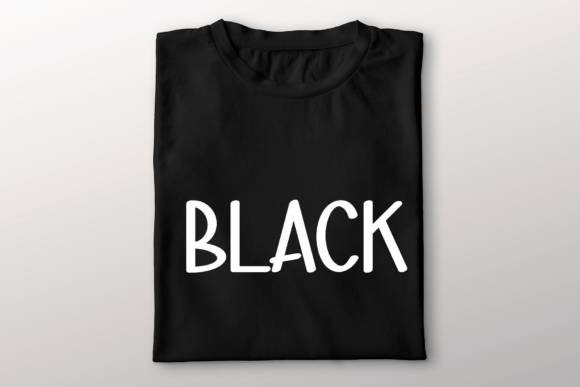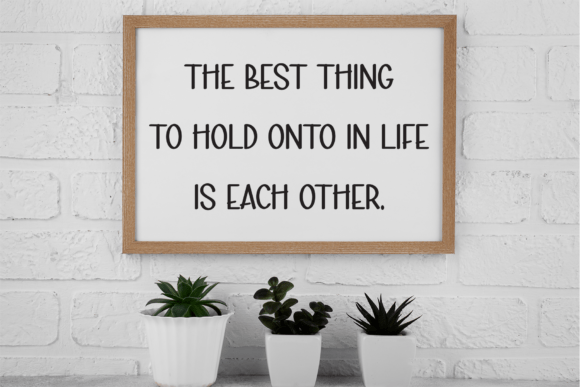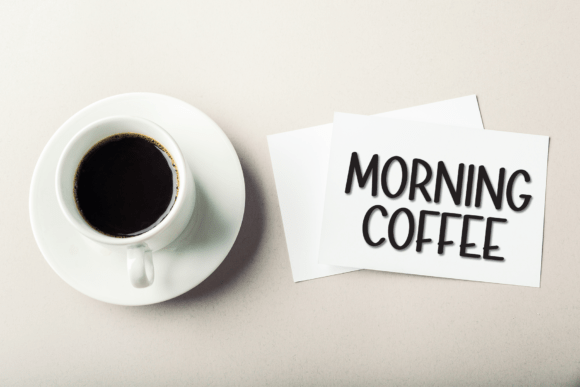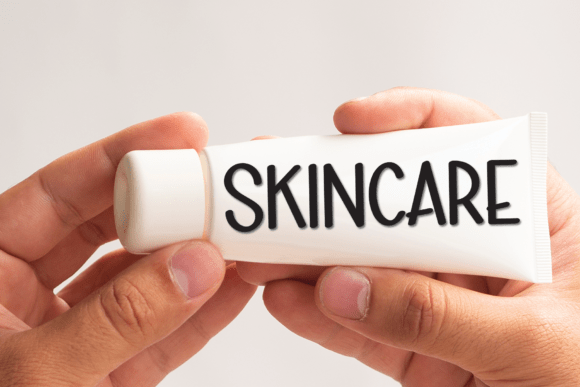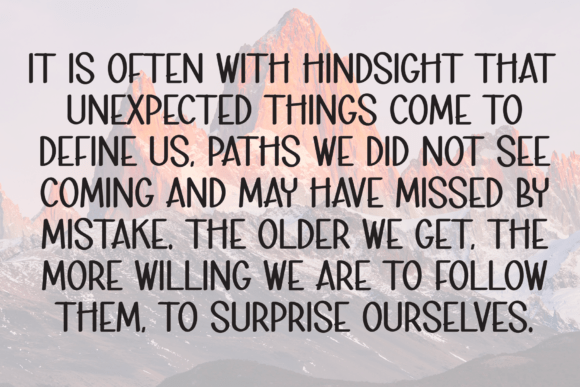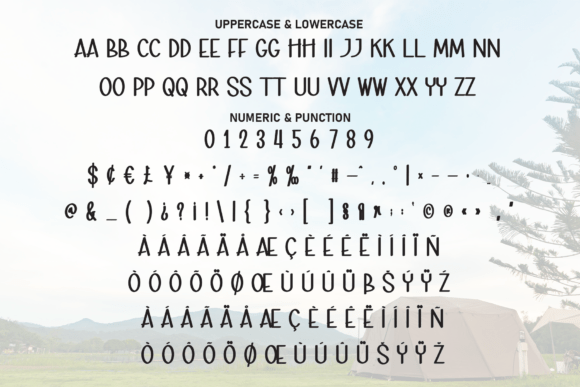
Camping Ground Font: Elevate Your Designs with a Casual and Neat Display Font
Are you tired of using generic fonts that lack personality? Look no further than the Camping Ground Font, a casual and neat display font designed to bring warmth and clarity to your projects. With its clean structure and approachable style, this font is perfect for branding, headlines, and everyday designs.
The Charm of Camping Ground Font
Camping Ground Font boasts balanced letterforms that offer readability and charm, making every message feel genuine and inviting. Its unique blend of modernity and approachability sets it apart from other fonts, making it an excellent choice for designers and crafters looking to add a personal touch to their work.
Key Features of Camping Ground Font
- Clean Structure: The font’s clean and simple structure ensures that your text is easy to read, even at smaller sizes.
- Approachable Style: The font’s casual and friendly style makes it perfect for creating a warm and inviting atmosphere in your designs.
- Balanced Letterforms: The font’s balanced letterforms provide excellent readability and add a touch of charm to your text.
- Versatility: Camping Ground Font is suitable for a wide range of design projects, from branding and headlines to everyday designs.
Camping Ground Font is an excellent choice for designers and crafters who want to add a personal touch to their work. Whether you’re creating a brand identity, designing a logo, or crafting a social media post, this font is sure to elevate your designs and make them stand out.
Use Cases for Camping Ground Font
- Branding: Use Camping Ground Font to create a unique and memorable brand identity that reflects your brand’s personality.
- Headlines: Add a touch of warmth and clarity to your headlines with Camping Ground Font, making them more engaging and attention-grabbing.
- Everyday Designs: Use Camping Ground Font to add a personal touch to your everyday designs, such as social media posts, flyers, and brochures.
- Crafting: Camping Ground Font is perfect for crafters who want to add a personal touch to their projects, such as handmade cards, gift tags, and scrapbooking.
Why Choose Camping Ground Font?
With so many fonts available, why choose Camping Ground Font? Here are just a few reasons:
- Unique Style: Camping Ground Font offers a unique blend of modernity and approachability that sets it apart from other fonts.
- Readability: The font’s clean structure and balanced letterforms ensure excellent readability, even at smaller sizes.
- Versatility: Camping Ground Font is suitable for a wide range of design projects, making it a great addition to any designer’s toolkit.
Camping Ground Font is a casual and neat display font that is sure to elevate your designs and make them stand out. With its clean structure, approachable style, and balanced letterforms, this font is perfect for designers and crafters looking to add a personal touch to their work. Whether you’re creating a brand identity, designing a logo, or crafting a social media post, Camping Ground Font is an excellent choice.